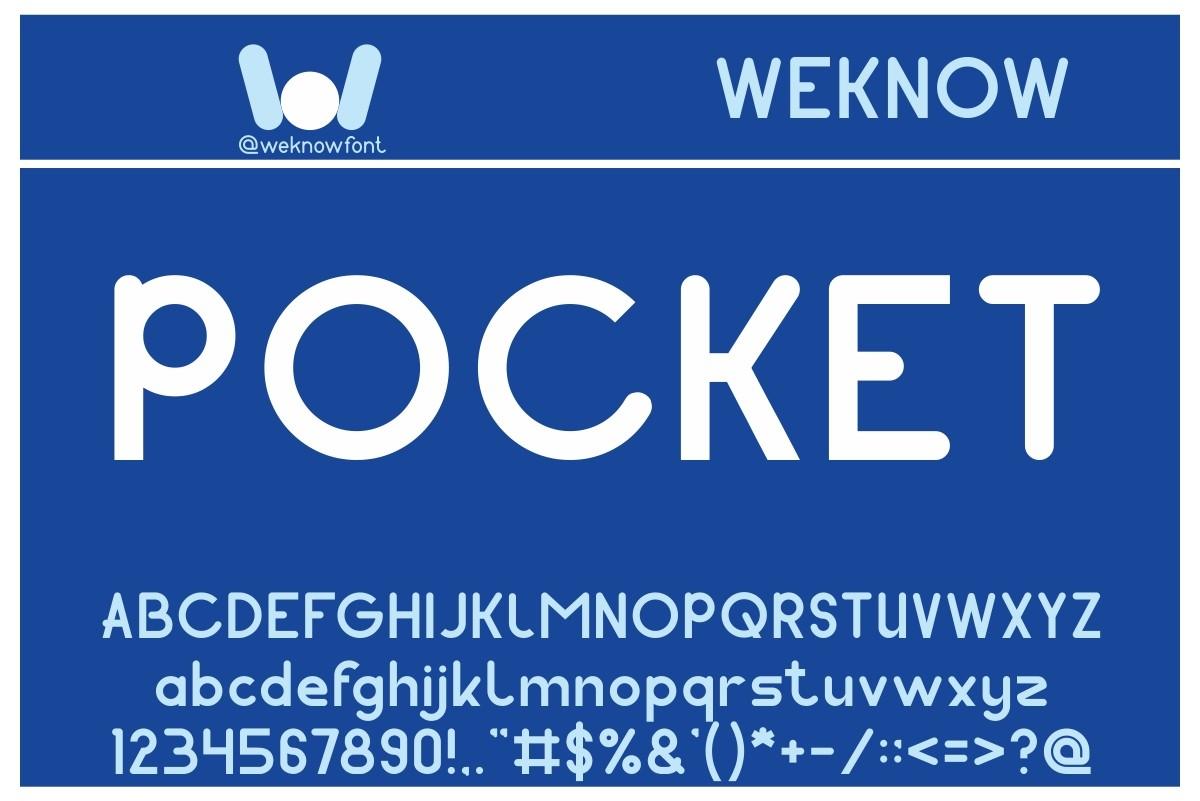
Pocket Font Description
Pocket is a basic display font that is suited for logos, logotypes, headlines, corporate and brand identity, apparel industry, posters, music album covers, movie titles, games, magazines, books, comics, cartoons, YouTube, Instagram, websites, or any of your creative design project